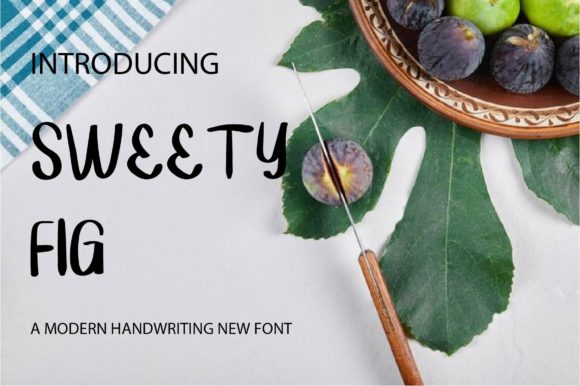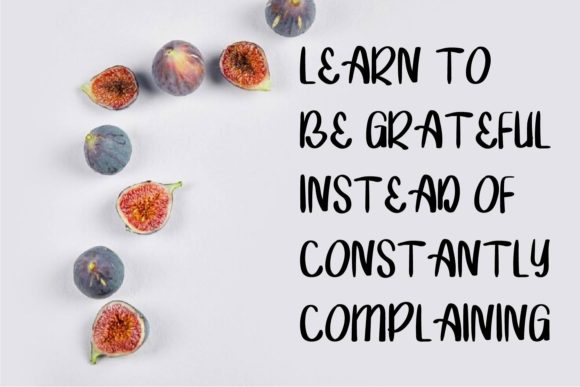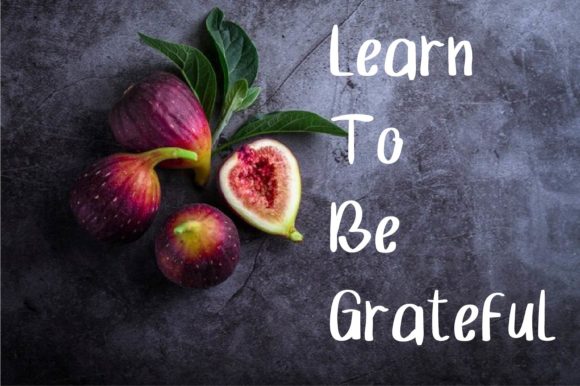
About Sweety Fig Font
Sweety Fig is a cute and quirky display font. It will add an incredibly joyful touch to your designs. Add this beautiful display font to each of your creative ideas and notice how it makes them stand out!